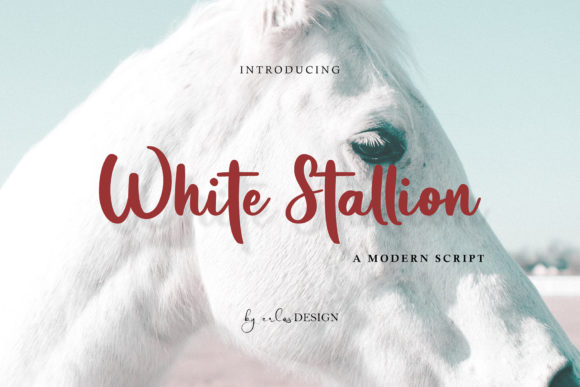
Unleash the power of White Stallion, a script font that gallops into the realm of elegance and sophistication. Let your words dance across the page with the grace of a thoroughbred, leaving a trail of beauty and inspiration in their wake.
White Stallion is not merely a font; it's an invitation to elevate your designs to new heights. Its delicate curves and flowing lines evoke a sense of timeless refinement, making it the perfect choice for crafting stunning resumes, enchanting invitations, and captivating branding materials.
With White Stallion's PUA encoding, you'll have a world of possibilities at your fingertips. Effortlessly access a treasure trove of glyphs and swashes, allowing you to add a touch of whimsy and flair to your creations. Each letter becomes a masterpiece, a testament to your discerning taste and creative vision.
Whether you're a seasoned designer or just starting your journey, White Stallion will become your trusted companion, guiding you towards design excellence. Its versatility knows no bounds, adapting seamlessly to both traditional and modern aesthetics. From classic invitations to cutting-edge logos, White Stallion transforms ordinary words into extraordinary works of art.
So saddle up and embark on an extraordinary typographic adventure with White Stallion. Let your imagination run wild as you unleash the power of this captivating font, leaving an unforgettable mark on the world with every stroke of your pen.